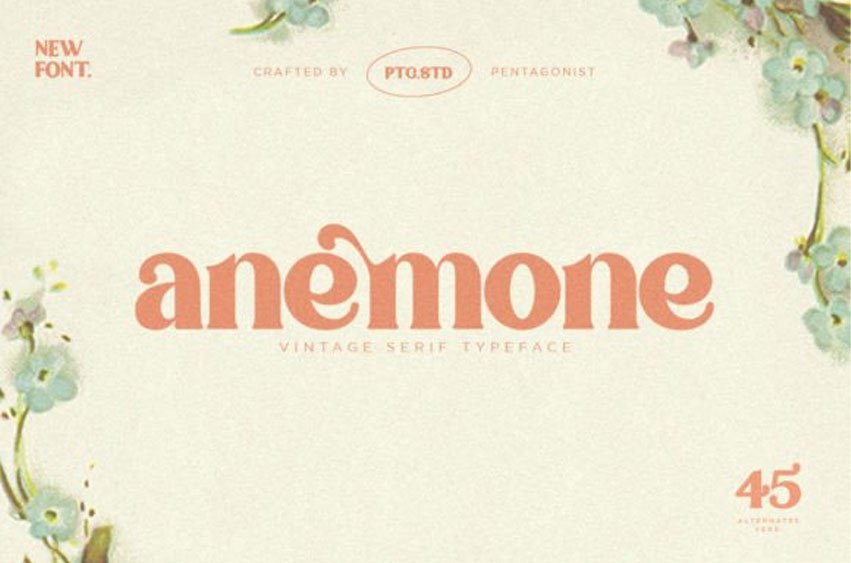
Anemone Font is an elegant, vintage-style serif display font.
Masterfully designed to become a true favorite, this font has the potential to bring each of your creative ideas to the highest level! Anemone is PUA encoded, which means you can access all the glyphs and ligatures with ease!